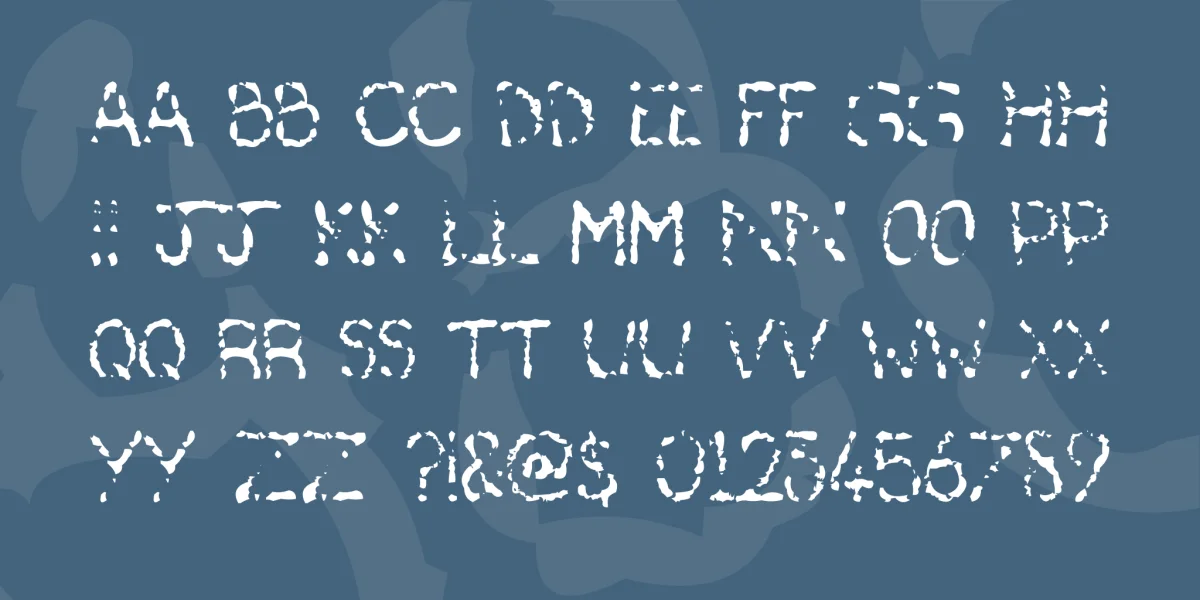
the fourth spadefont and, in my opinion, the best yet. i describe it as urban decay captured in a font. it can be a bit dodgy to read but have a closer look - some letters are more "there" than others!
this font is inspired by the music of elbow (an english alt-rock band from manchester) - grungy, yet beautiful in its own way.